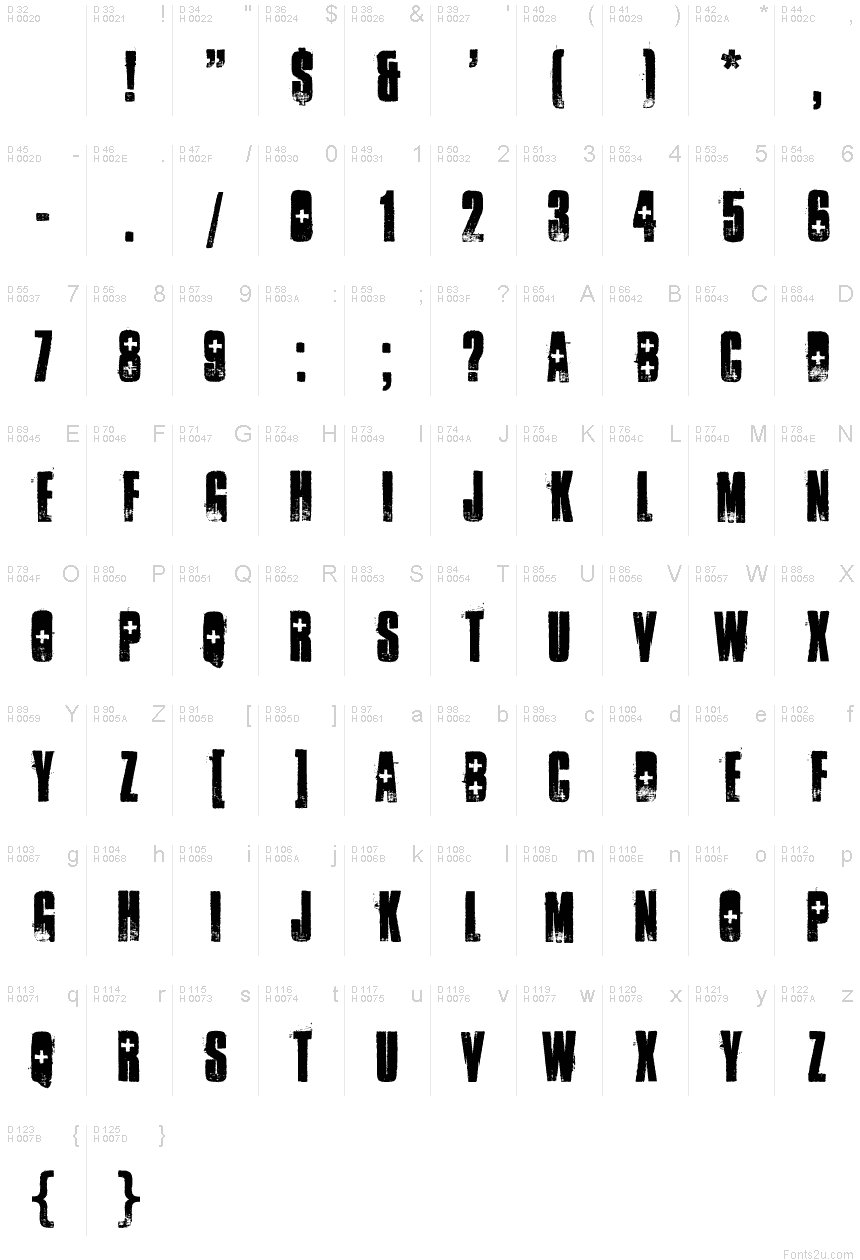
Ambulance Shotgun font by GYOMSEGS is a free eroded display typeface that looks like it’s been dragged through a warzone and stamped with first-aid crosses. Heavy black letters crumble at the edges into rough, speckled textures, while the bold plus signs locked inside each form add a brutal, paramedic-meets-punk twist. It feels loud, distressed, and urgent-like a siren rendered in ink and grit.
Using Ambulance Shotgun, you can punch up horror posters, zombie game titles, punk and metal album art, protest graphics, streetwear logos, and grunge social banners. This free font thrives at huge sizes where every splatter and scratch reads clearly. For supporting text, pair it with a clean, narrow sans serif to keep layouts readable while letting Ambulance Shotgun handle the chaos.